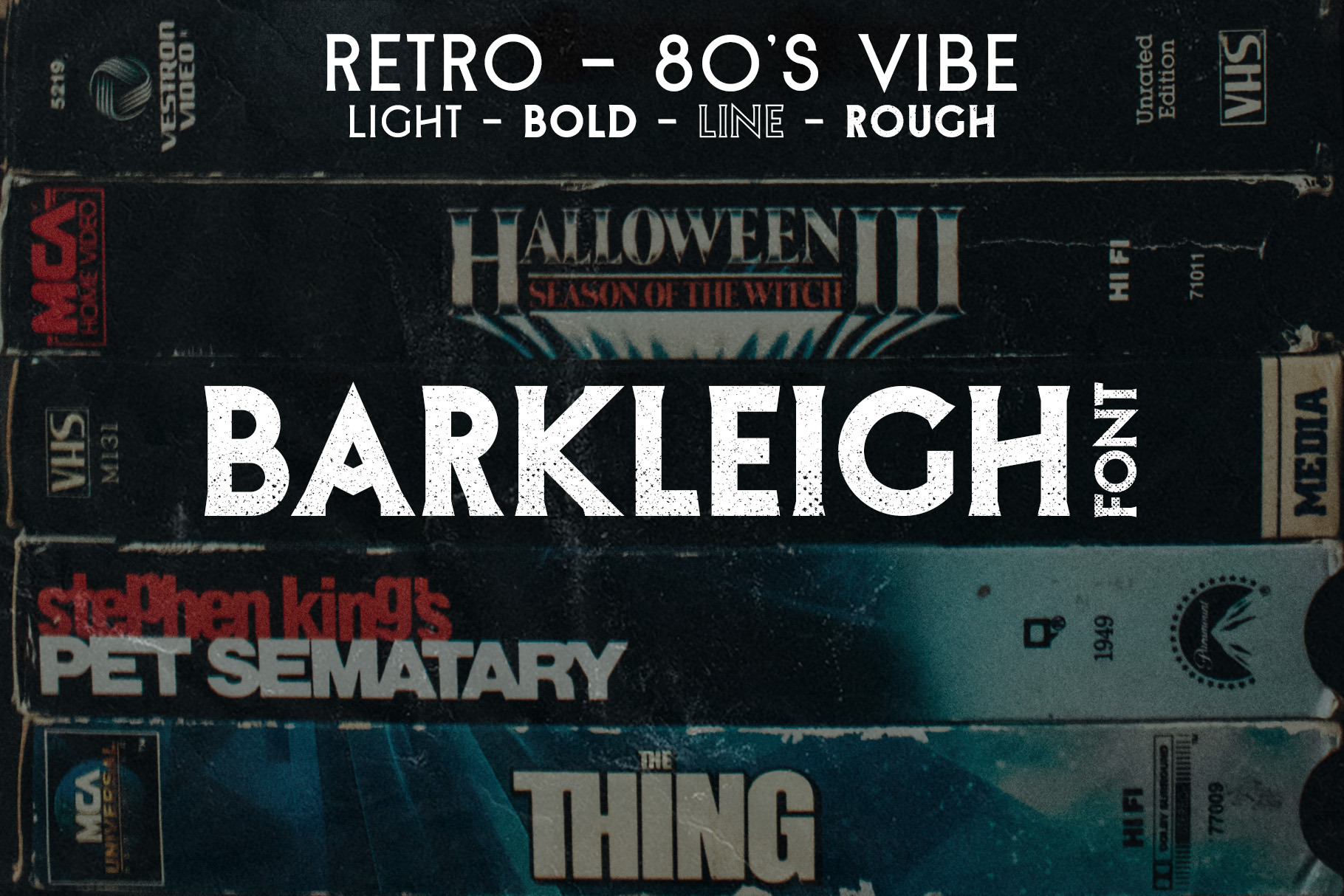
Barkleigh Font | 80s Retro (6 fonts)
B A R K L E I G H
Barkleigh is a new font from us here at Badspark, and it was born out of a love for typefaces of the 80s. Things you'd see on a Stephen King novel, a cassette tape, or beat up VHS from Blockbuster. Though Barkleigh shares a lot in common with fonts from that era it stands out in its versatility and its timelessness. We can't wait to see what you do with it.
- Bold
- Bold Inline
- Bold Rough
- Light
- Light Inline
- Light Rough